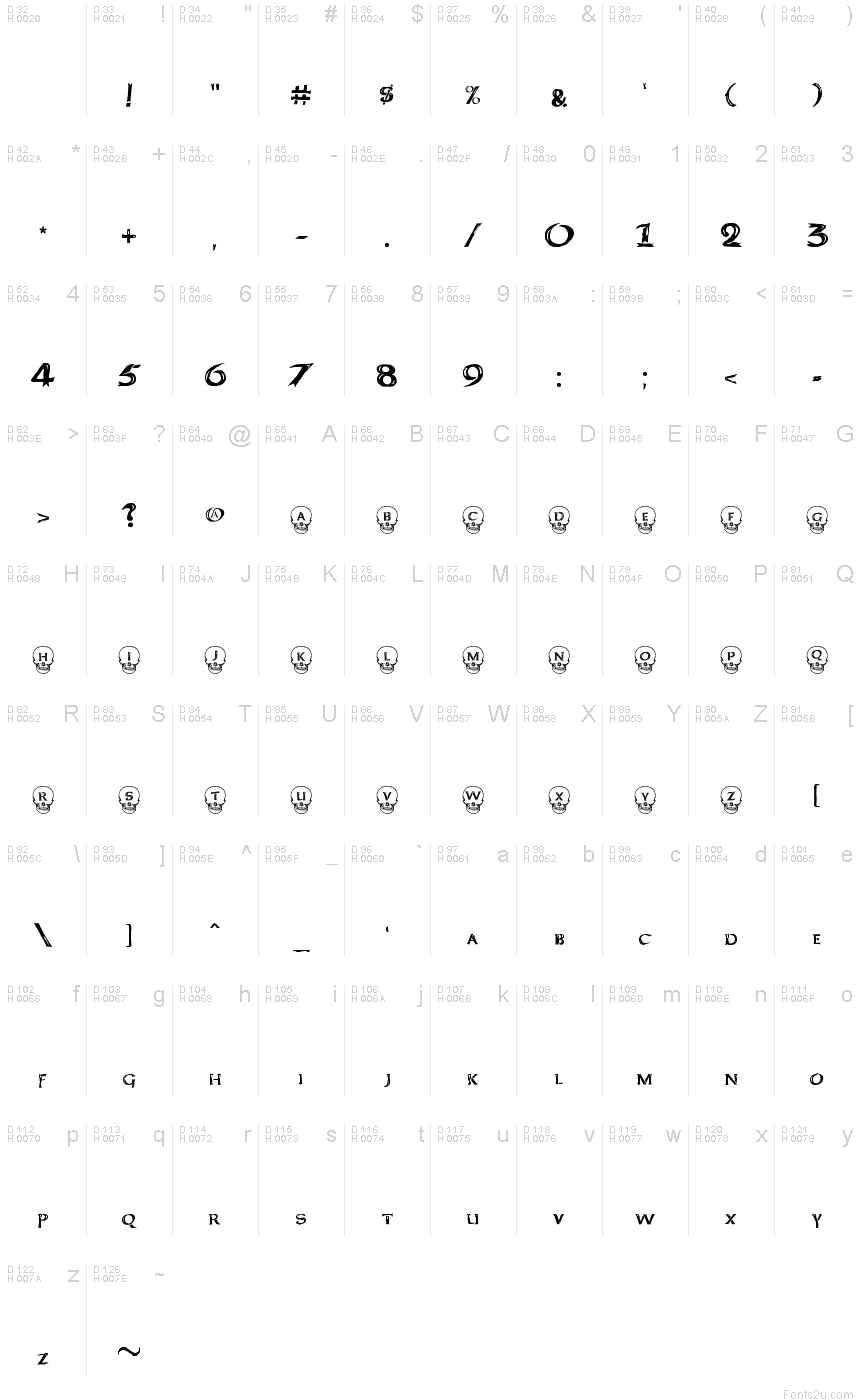
Deathhead KeltCaps
Deathhead KeltCaps font by GemFonts is a free horror decorative display typeface. Hand‑drawn skulls cradle each bold, chiseled letter, while the rough, inked outlines feel like they were scratched onto a tombstone or scrawled on an old gig flyer. The angular, Celtic-flavored capitals and gritty texture give your titles a macabre, underground edge that’s hard to fake with cleaner fonts.
Using Deathhead KeltCaps, you can brand horror zines, metal band logos, Halloween posters, RPG titles, haunted attraction signage, and eerie YouTube thumbnails with the same savage energy. This free font wants to be big and loud-set it large so the skull details read clearly, and pair it with a plain, modern sans-serif for body copy to keep everything legible and punchy.